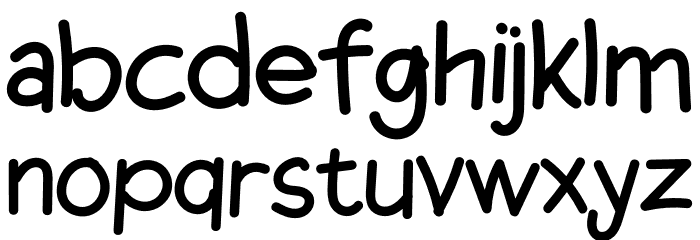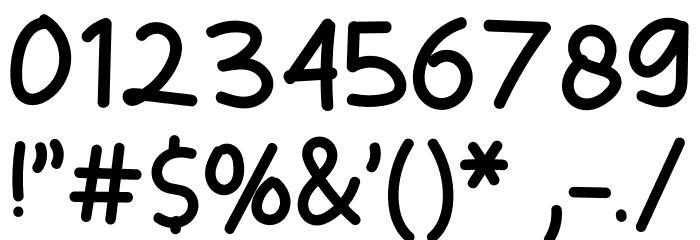
Coffe Break Font
This font features a playful and casual handwritten style, characterized by its rounded and slightly irregular letterforms. The strokes are consistent in thickness, giving it a uniform appearance while maintaining a friendly and approachable vibe. The characters are well-spaced, ensuring readability even at smaller sizes. Its informal nature makes it suitable for projects that aim to convey warmth and friendliness. The font includes a full set of uppercase and lowercase letters, numbers, and a variety of special characters, making it versatile for different design needs.
A playful, handwritten font with rounded, consistent strokes.
- Font: Coffe Break
- Proposed Projects: Ideal for children's books, greeting cards, casual branding, and social media graphics.
- Category: Handwritten
- Overall Style: Casual
- Use Case: Headlines, Informal text, Branding